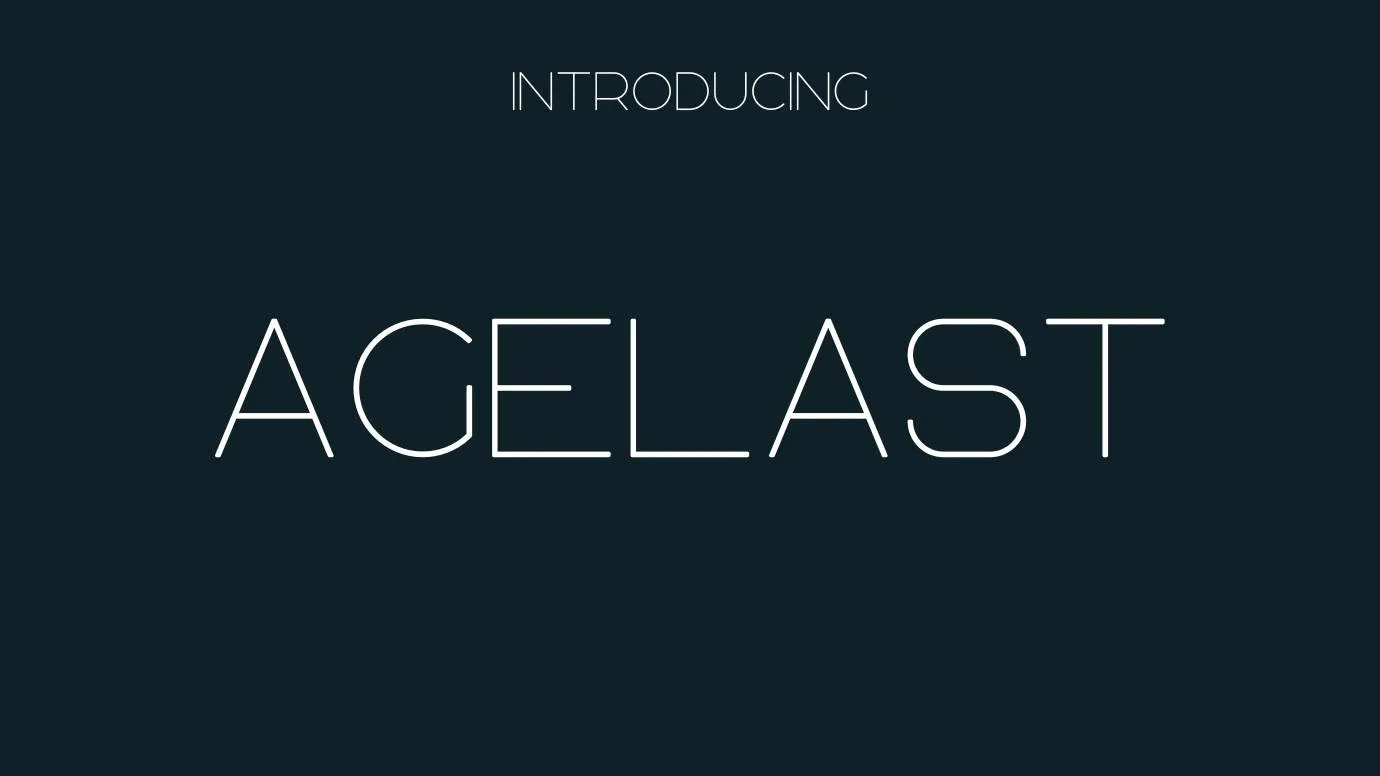
Agelast Font Family is a modern fancy typeface that has a smooth look. Vladimir Fedotov and Plamen Petrov are two brilliant mind designers who work for the creation of this family and the VP Creative Shop is the publisher of this typeface.
Agelast Font